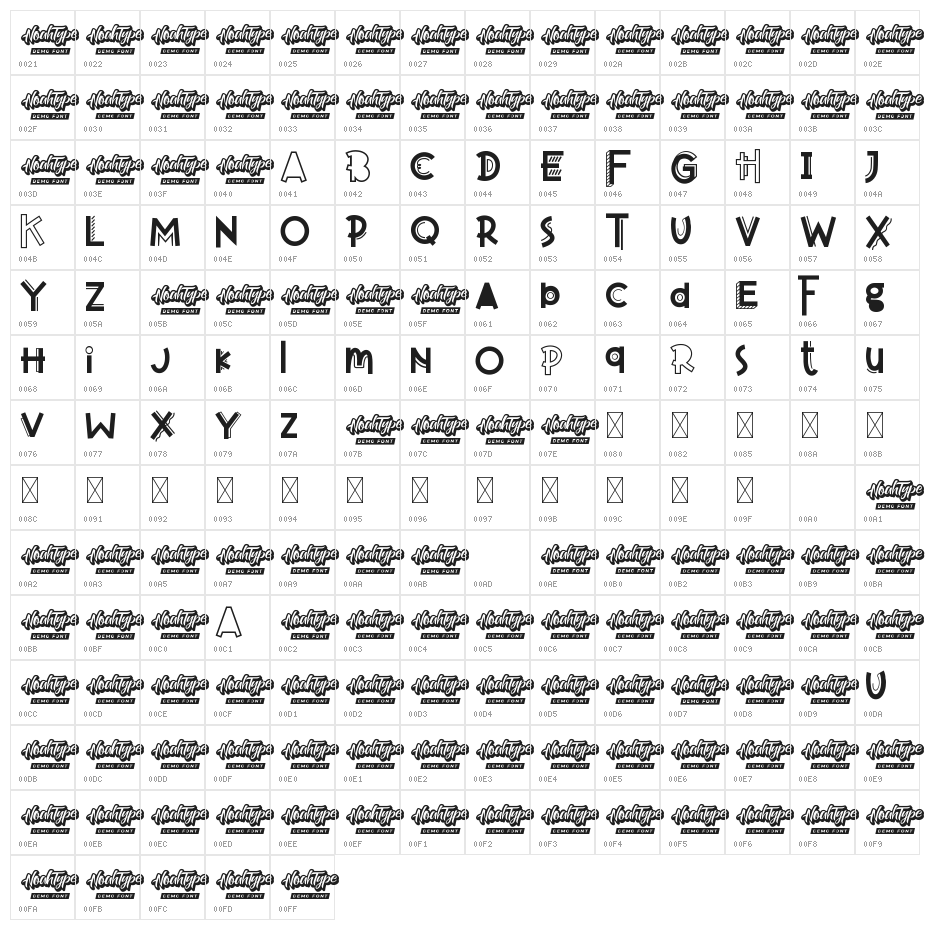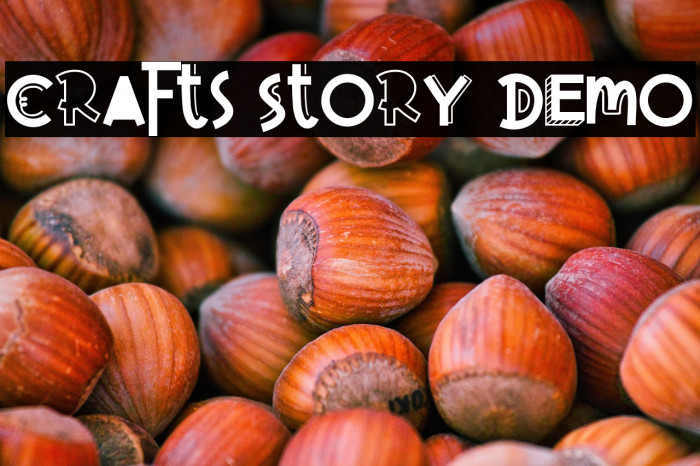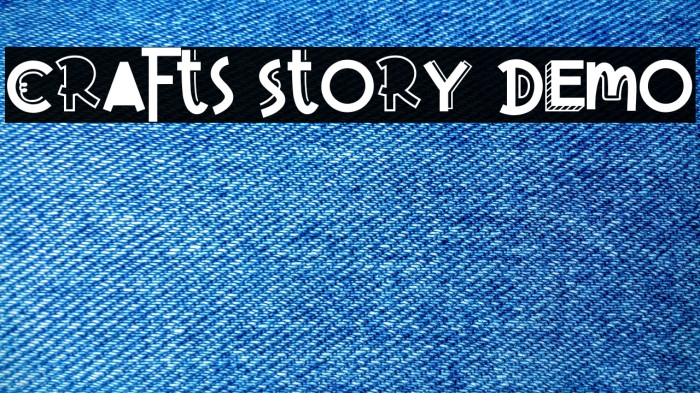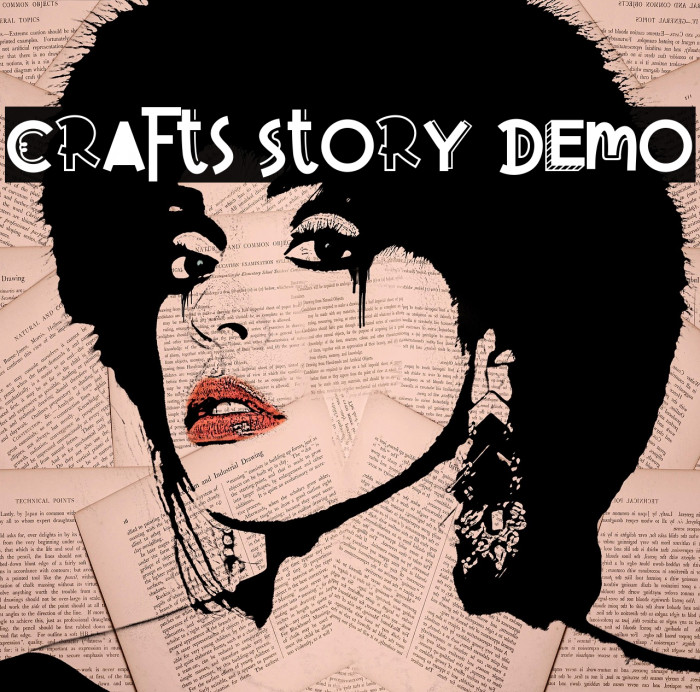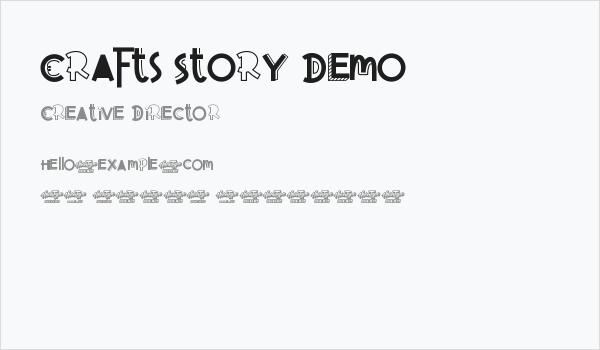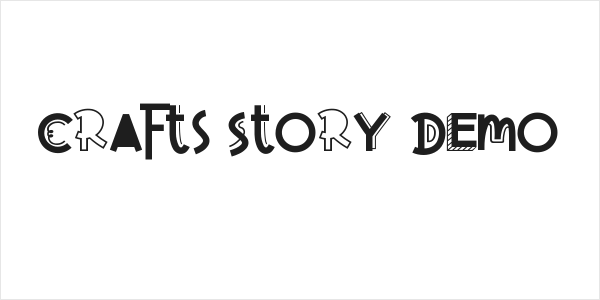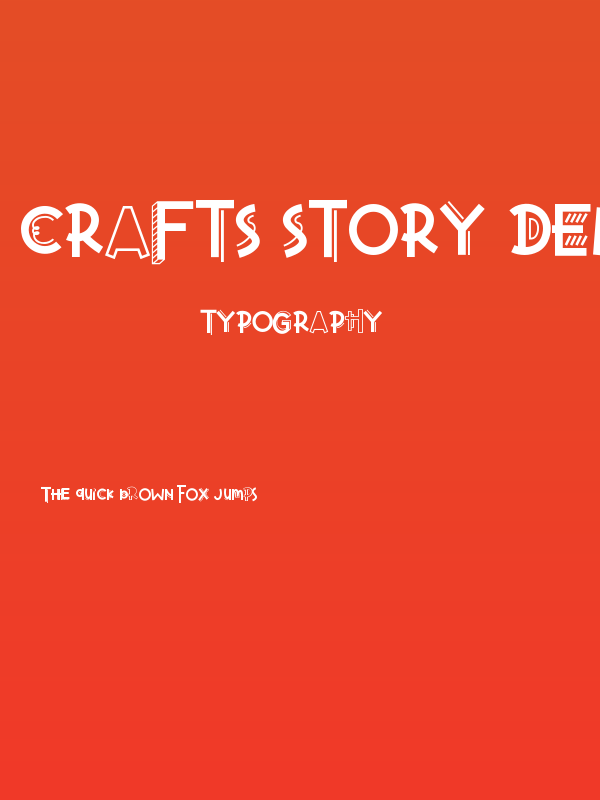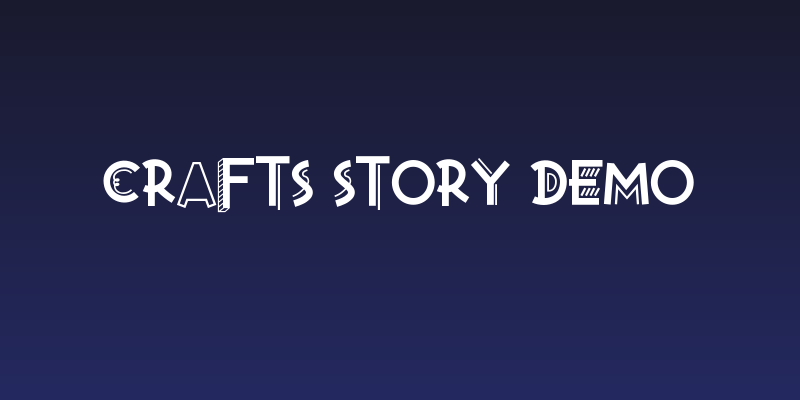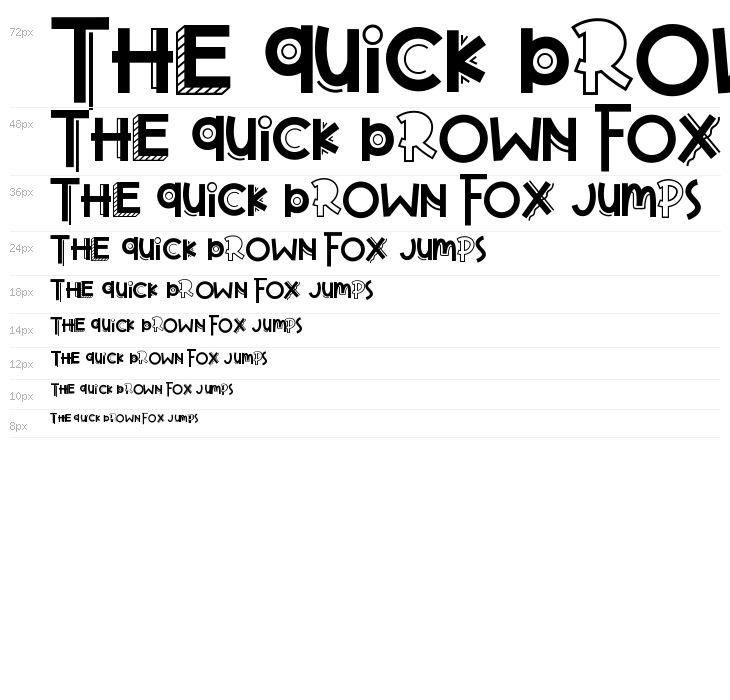
Crafts Story Demo Font
Crafts Story Demo Description
This font is a playful and eclectic display typeface that combines a variety of styles within each character. Each letter features unique design elements such as stripes, shadows, and geometric shapes, creating a dynamic and eye-catching appearance. The uppercase and lowercase letters maintain a consistent height, while the numbers and special characters are designed to match the whimsical style of the alphabet. This font is perfect for projects that require a bold and artistic touch, offering a sense of creativity and fun.
| Proposed Projects | Ideal for posters, children's book covers, creative branding, and playful invitations. |